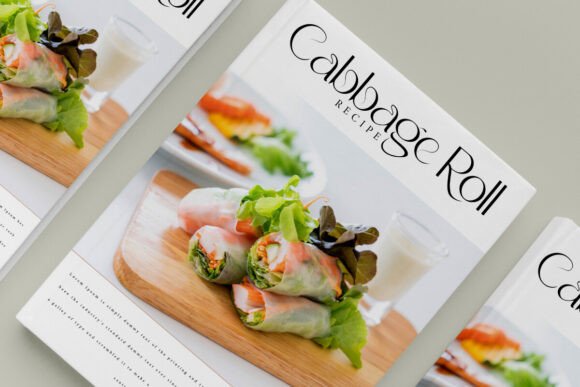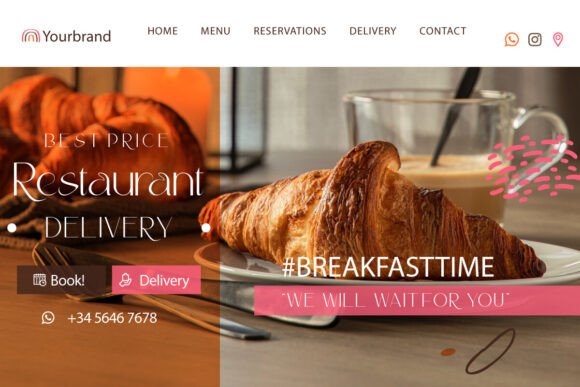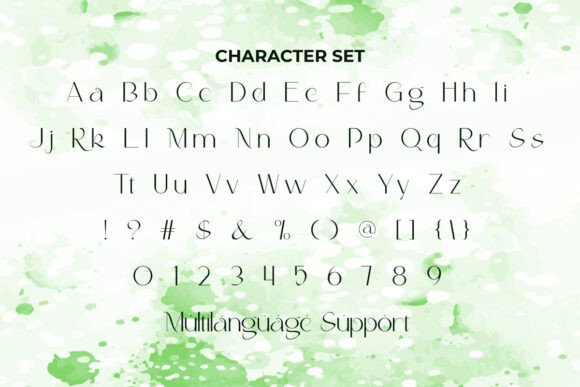
Cabbage Roll Font
Cabbage Roll Font is a simply elegant and modern serif display font that is inspired by a healthy vegetable. That’s amazing for whatever your design is, such as apps, blogs, brochures, catalogues, cover, flyer, header, logos, menu, packaging design, poster, product label, quotes, screen print, signage, stationery, sticker, title, website, and more.